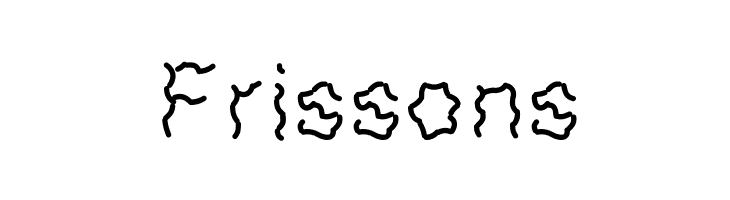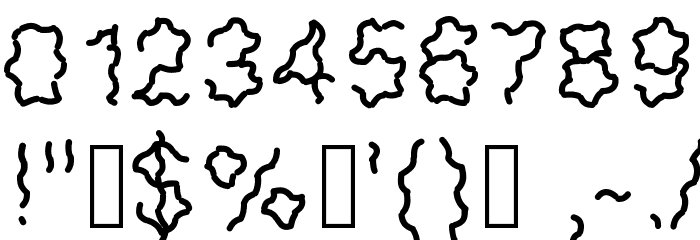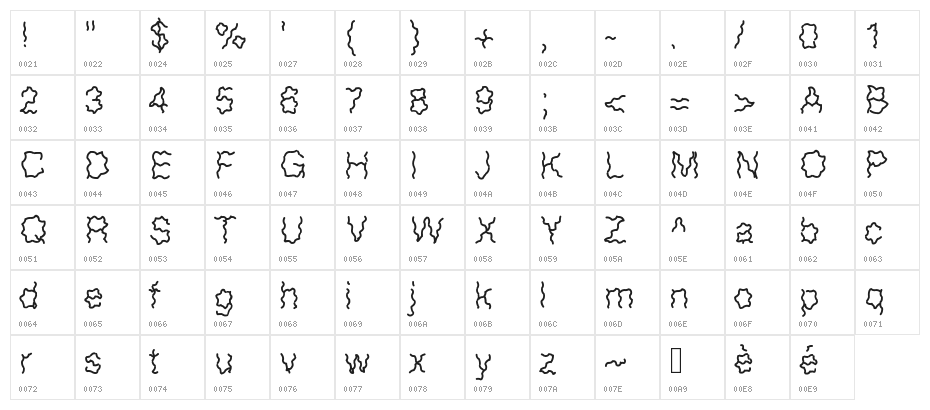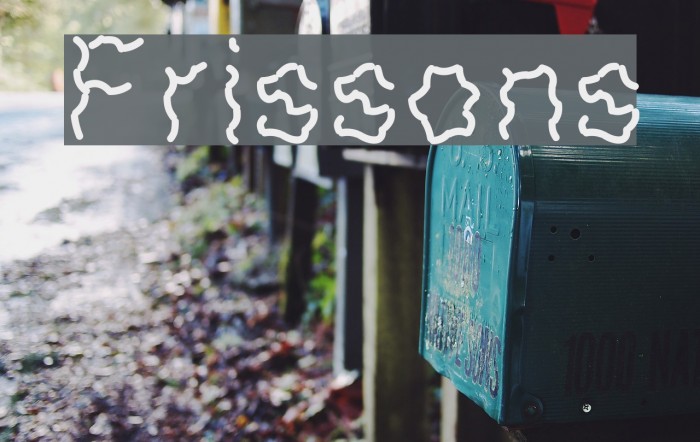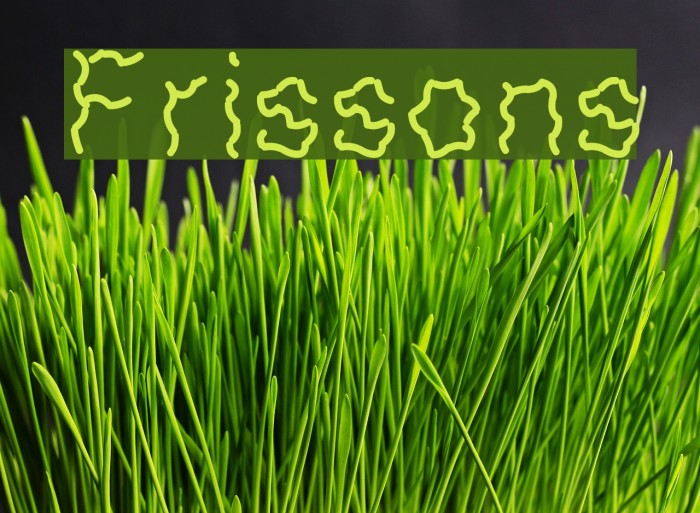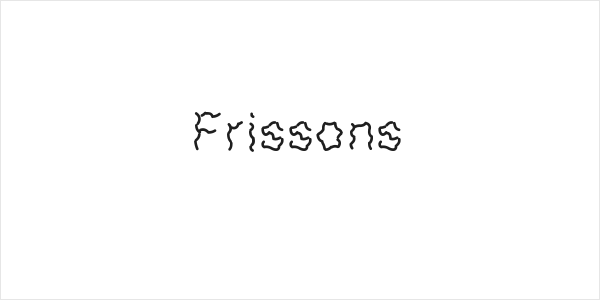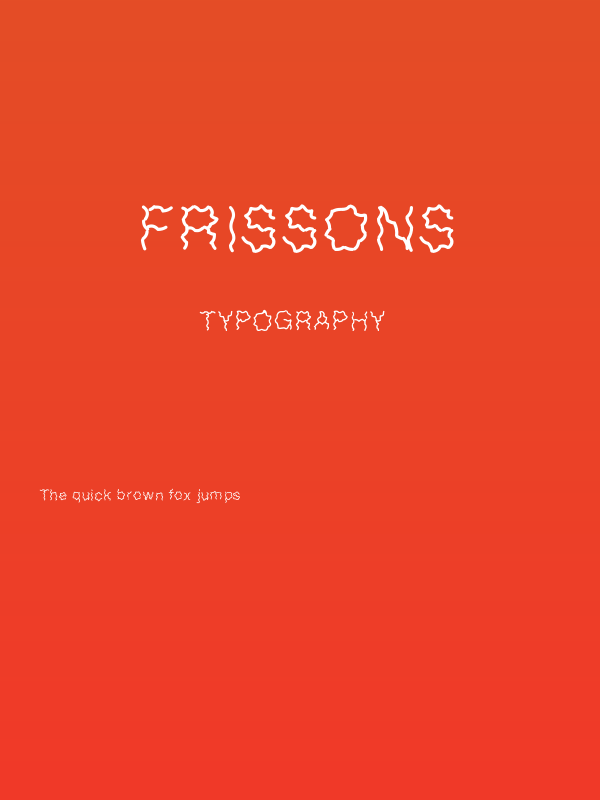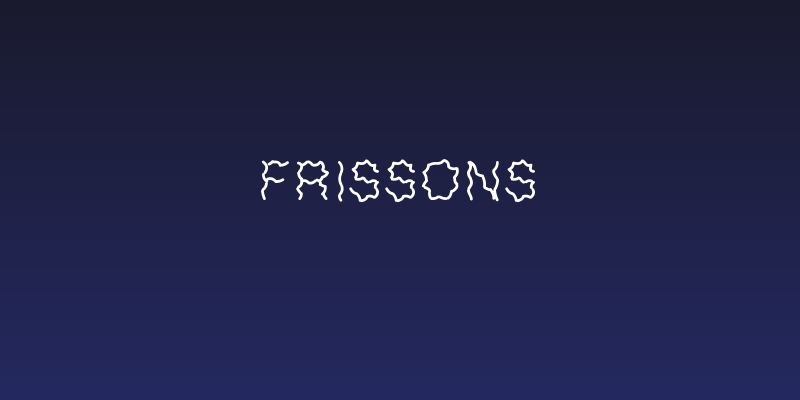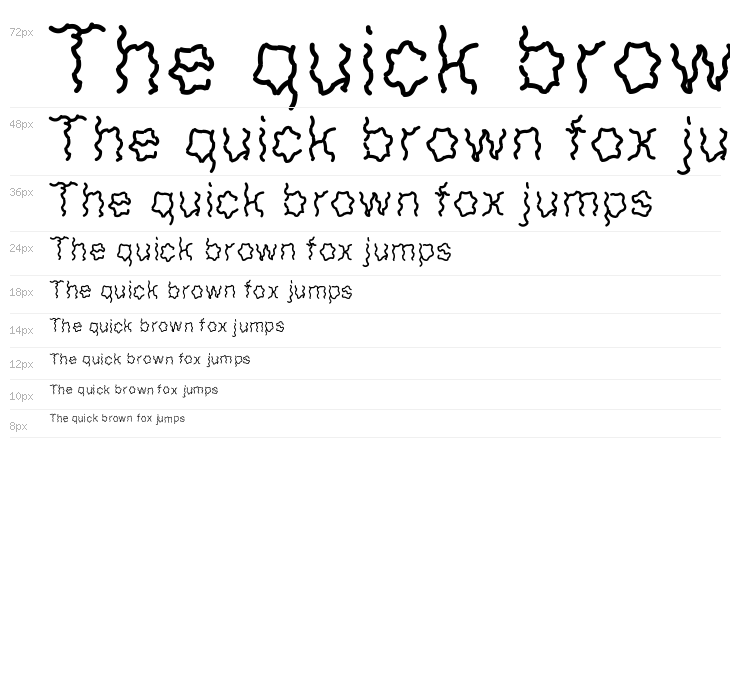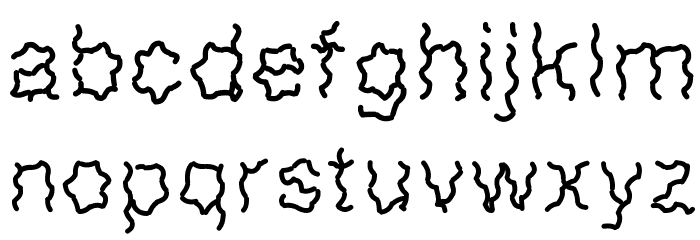
Frissons Font
Frissons Description
This font features a unique, wavy design that gives each character an organic, fluid appearance. The letters are formed with irregular, jagged edges that create a sense of movement and energy. This style is reminiscent of hand-drawn or natural forms, making it stand out with its artistic flair. The uppercase and lowercase letters maintain a consistent style, while the numbers and special characters follow the same dynamic pattern. The overall look is playful and unconventional, perfect for projects that require a touch of creativity and individuality.
| Proposed Projects | Ideal for creative projects such as album covers, posters, children's books, and artistic branding. |